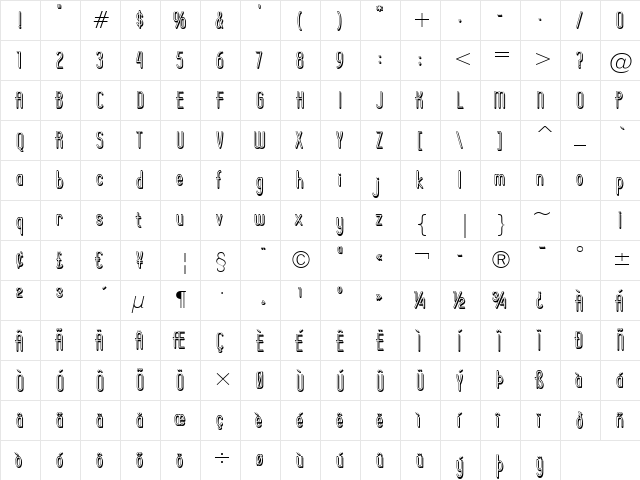
Operator Nine BTN Shadow Regular
Design Context for Operator Nine BTN Shadow Typeface
Operator Nine BTN Shadow is built around its visual character rather than neutral utility — its distinctive forms are designed to make an impression at display sizes.
Font Pairing: Pair with a clean neutral sans-serif for body copy to let Operator Nine BTN Shadow's character lead without overwhelming the composition.
Pro Tip: Use Operator Nine BTN Shadow exclusively at display sizes — it was designed to be seen, not read at length. Let a neutral companion handle body copy.